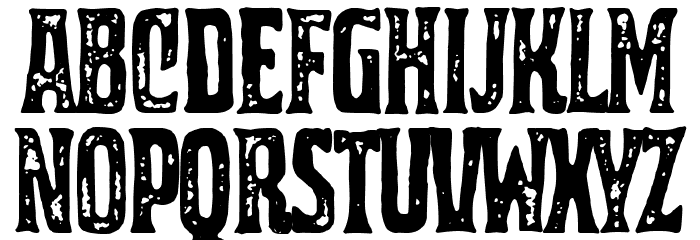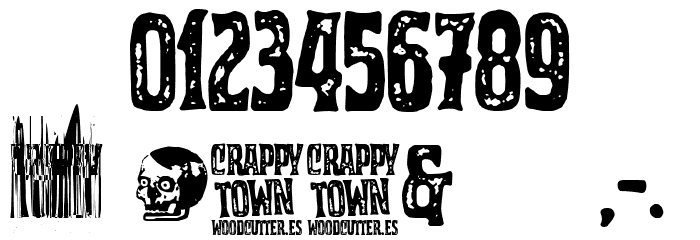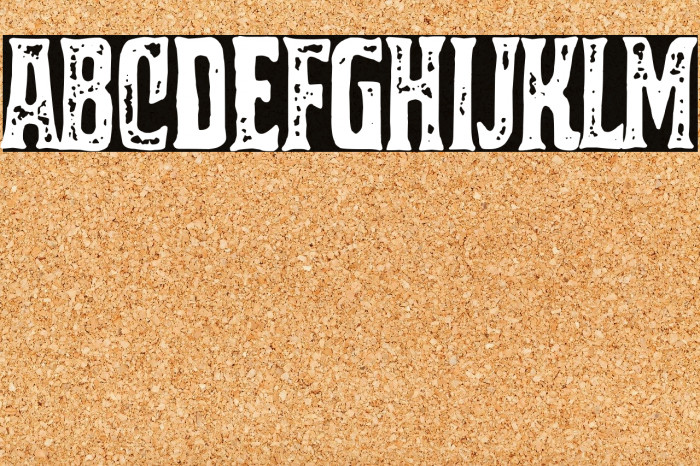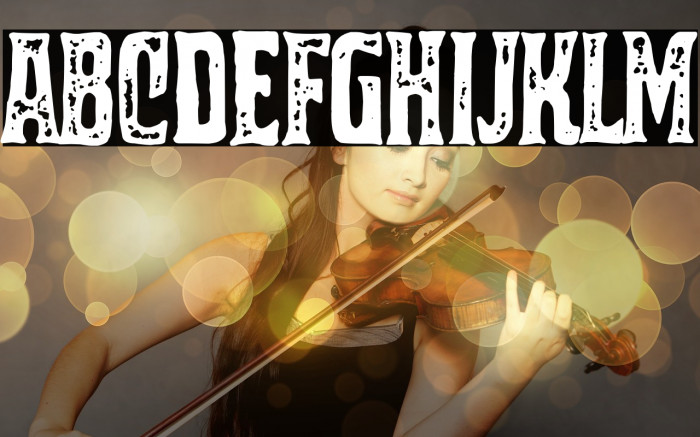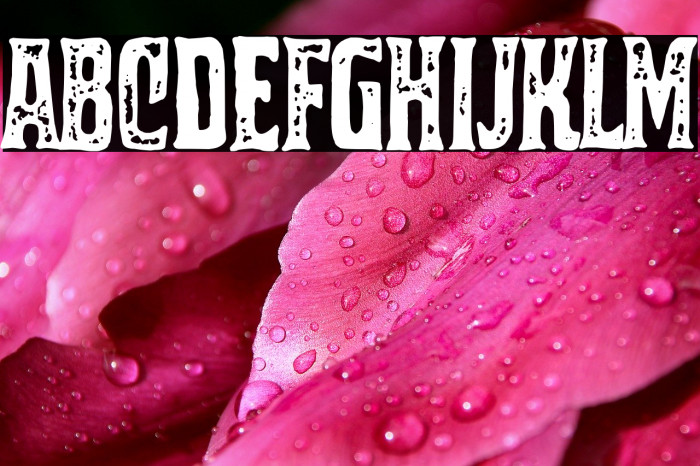
Crappy Town Font
This font features a bold and distressed style, with a rugged, hand-crafted appearance. Each character is uniquely textured, giving it a worn, vintage look reminiscent of old signage or posters. The irregularities in the design add a sense of authenticity and character, making it stand out in any design project. The uppercase letters are particularly striking, with a strong presence that commands attention. The numbers and special characters maintain the same distressed aesthetic, ensuring consistency across all text elements.
A bold, distressed font with a vintage, hand-crafted appearance.
- Proposed Projects: Ideal for vintage-themed posters, album covers, branding for rustic or artisanal products, and any design needing a bold, eye-catching typeface.
- Overall Style: Vintage